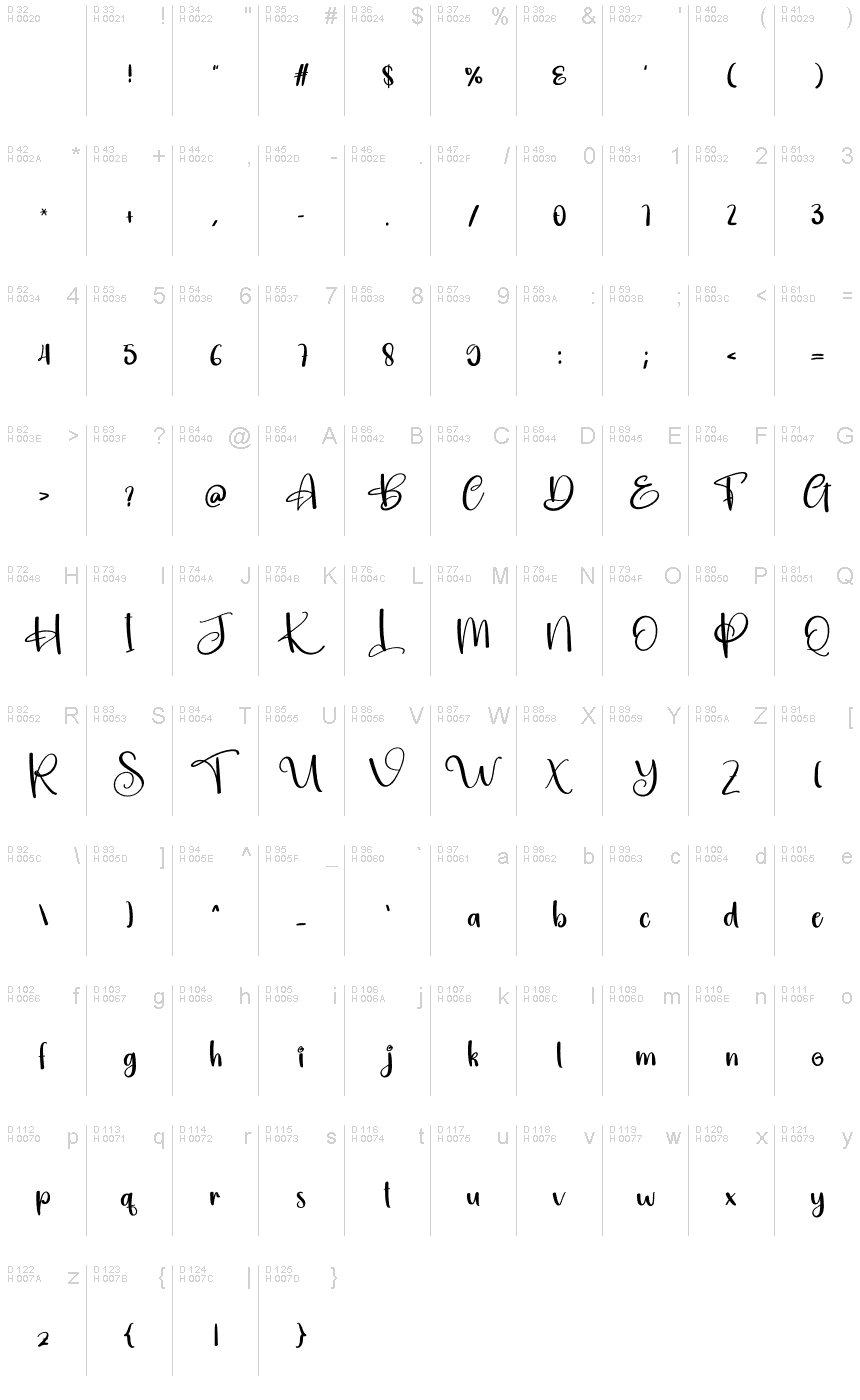
Handy
Introducing Handy, a charming handwritten font by scratchones. With its playful strokes and authentic feel, Handy adds a touch of whimsy to any project. This versatile font is perfect for crafting eye-catching logos and branding materials. Its casual elegance also makes it suitable for creating captivating social media graphics or adding a personal touch to wedding invitations. Whether you're designing greeting cards or creating animated videos, Handy's unique hand-drawn style will make your projects stand out from the crowd. Embrace the artistry of handwriting with Handy!